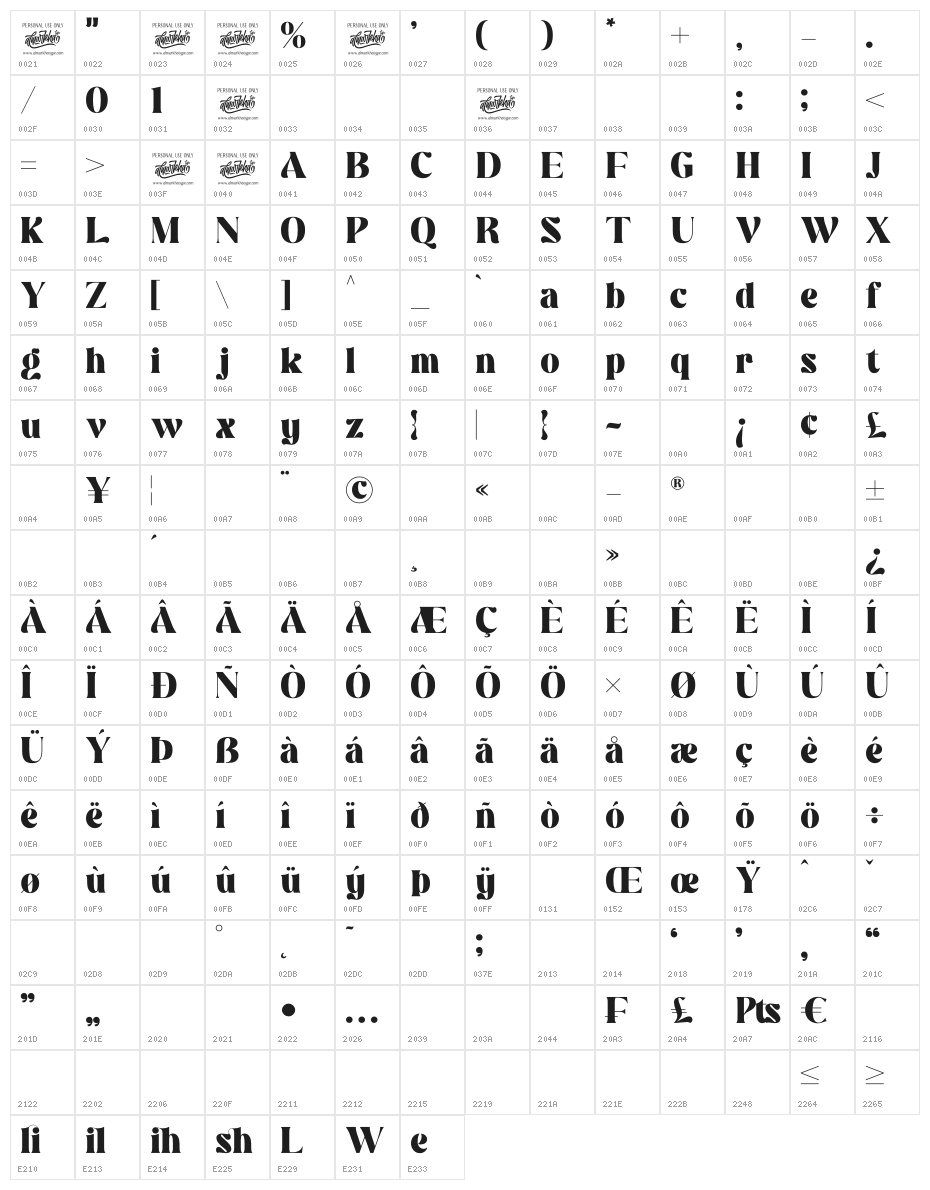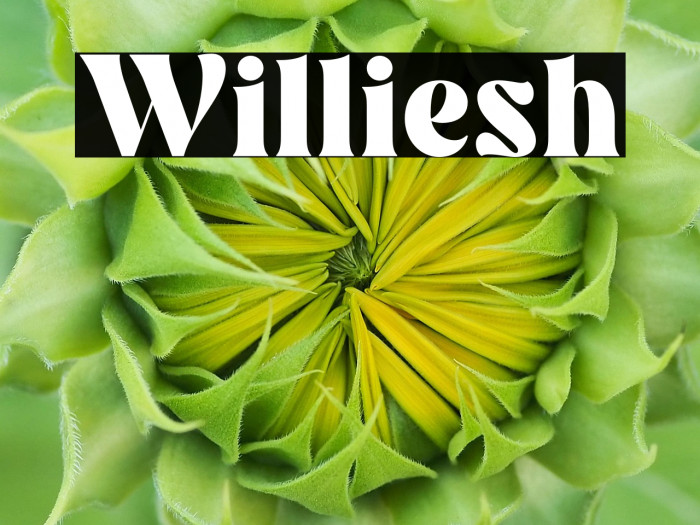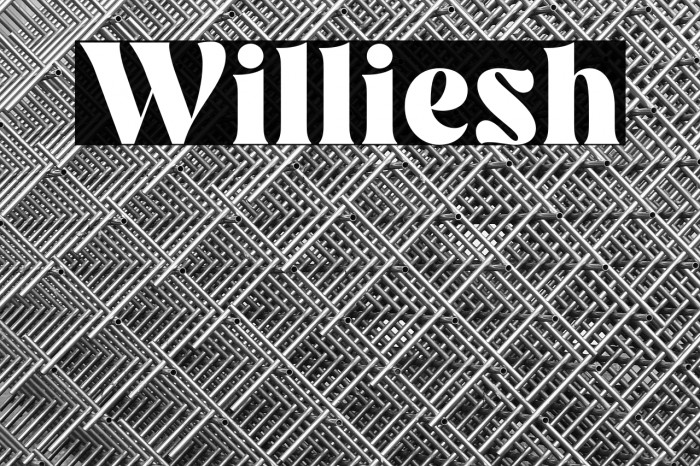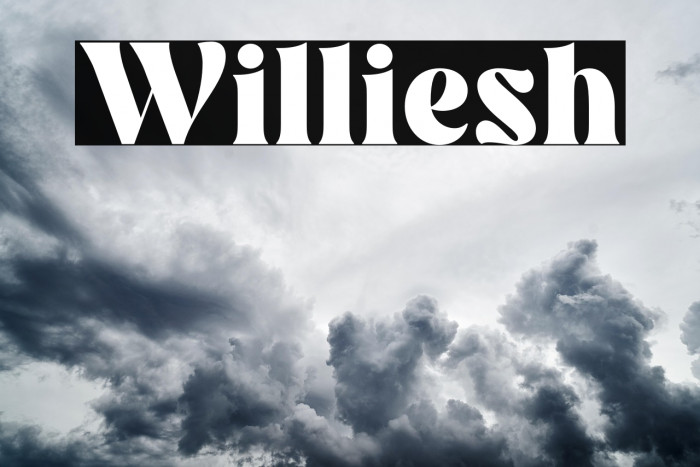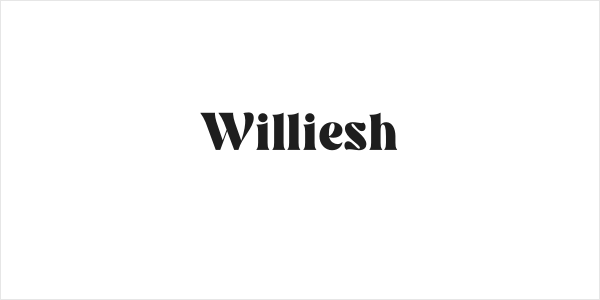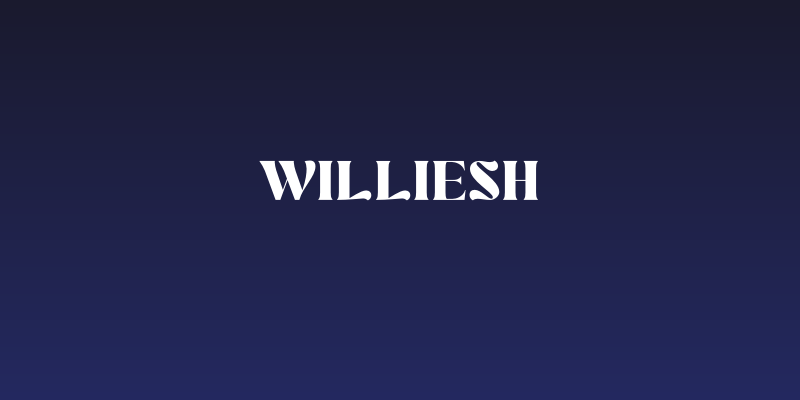
Williesh Font
Williesh Description
This font features a bold and striking design with a modern twist on traditional serif elements. The uppercase letters exhibit strong, thick strokes with subtle curves, creating a sense of elegance and authority. The lowercase letters maintain a consistent weight, offering a harmonious balance between readability and style. The numerals are equally bold, ensuring they stand out in any context. Special characters are designed with the same attention to detail, making them suitable for a variety of uses. The overall aesthetic is both classic and contemporary, making it versatile for numerous design projects.
| Proposed Projects | Ideal for branding, headlines, posters, and editorial design. |